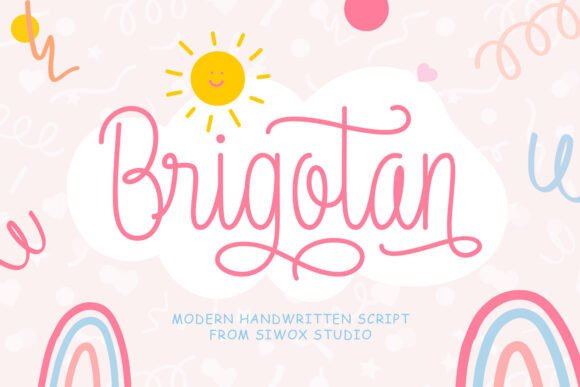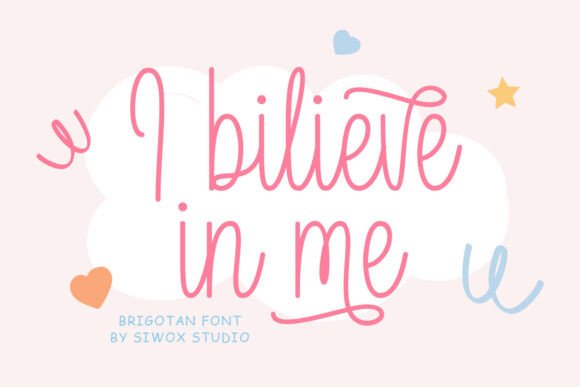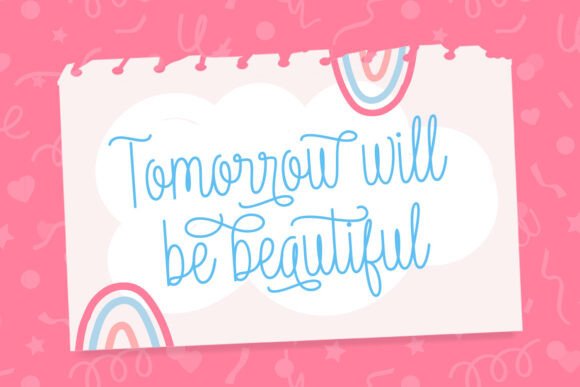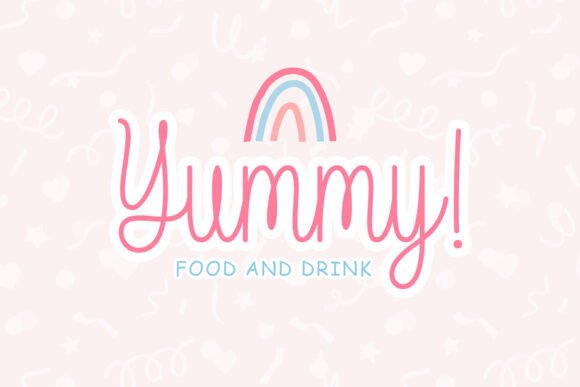
Brigotan Font
About the Brigotan Font
Let us introduce you to Brigotan Font, where timeless design meets modern craftsmanship. Brigotan is a cute monoline script font. This font’s simplicity and elegance ensure that it stands out in logos, labels, and promotional materials, adding a sweet and approachable touch to any design. With its modern yet timeless feel, Brigotan effectively conveys a sense of love and care, making it perfect for brands focused on baby products.
Its delicate monoline structure makes Brigotan ideal for short headlines, logotypes, and packaging designs requiring a touch of understated elegance. It works exceptionally well in projects related to beauty, fashion, or stationery, where a sense of refinement is crucial. However, its thin strokes make it less suitable for body text or UI elements, where readability at smaller sizes is paramount.
For effective pairings, consider pairing Brigotan with a clean sans-serif like Montserrat for a modern contrast or a classic serif like Playfair Display for a more traditional feel. A geometric sans-serif such as Futura would add a contemporary edge, while a simple, neutral sans-serif provides a versatile backdrop.
Brigotan’s overall personality is best described as friendly and approachable, yet sophisticated. Its soft curves and consistent line weight avoid appearing overly whimsical, maintaining a level of professionalism suitable for brands aiming for a balance between charm and credibility.
Brigotan Font Usage Examples
Brigotan Font Example